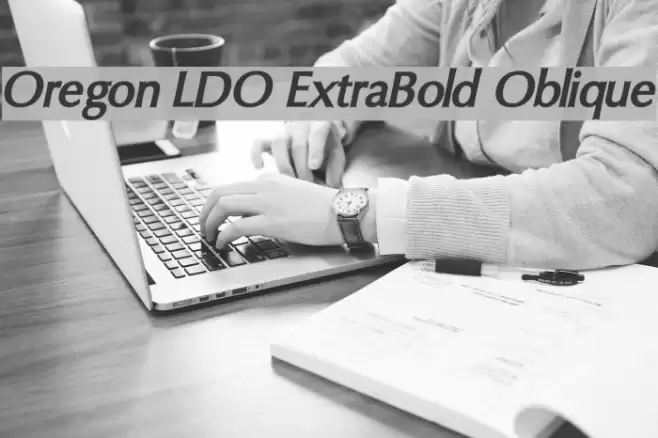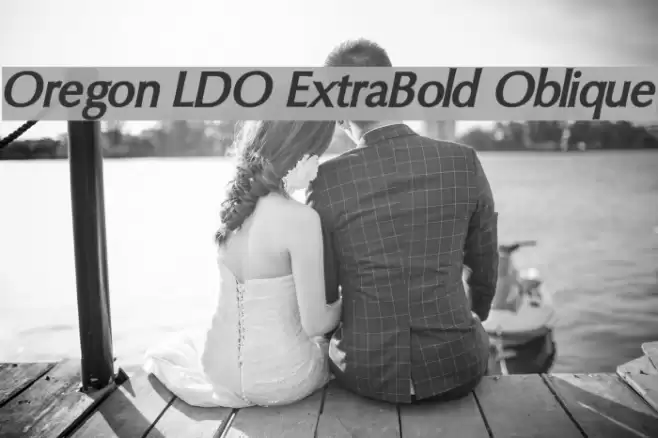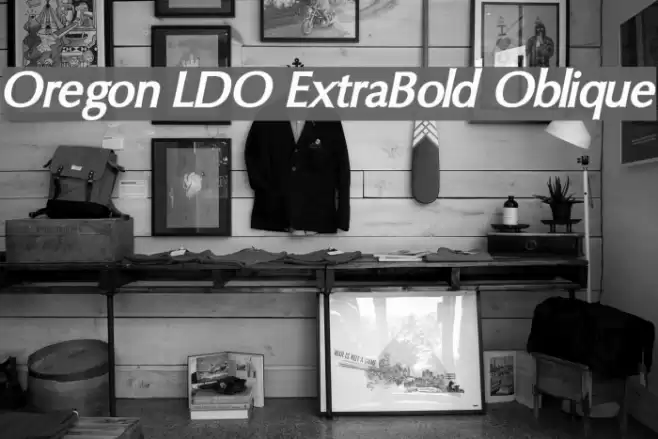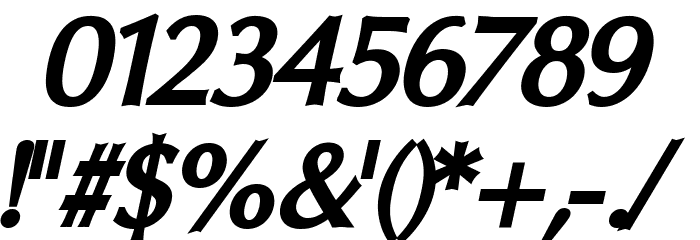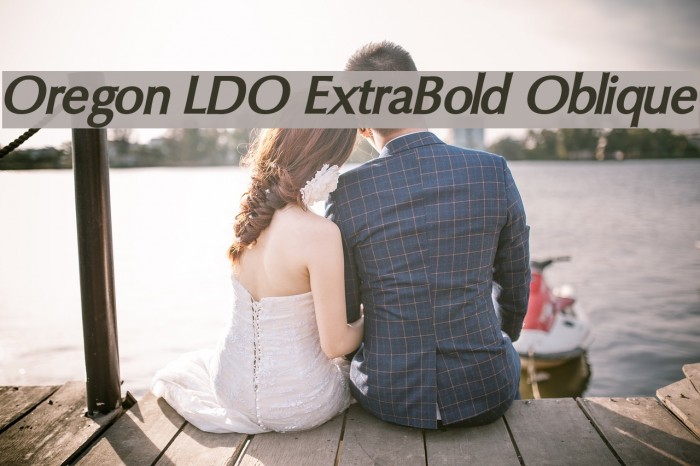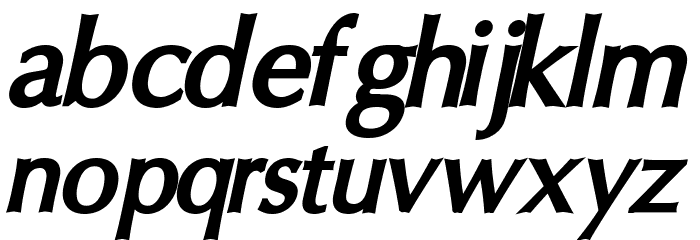
Oregon LDO ExtraBold Oblique Font
Oregon LDO ExtraBold Oblique Description
This font features a bold and oblique style, characterized by its strong, slanted letterforms that convey a sense of dynamism and movement. The uppercase and lowercase letters maintain a consistent weight, providing a uniform appearance across the text. The numerals are clear and legible, matching the boldness of the alphabet characters. Special characters are included, offering versatility for various design needs. The overall aesthetic is modern and assertive, making it suitable for impactful headlines and attention-grabbing designs.
A bold, oblique font with a modern and dynamic style from Uncategorized fonts.
- Proposed Projects: Ideal for branding, advertising, and editorial design where a strong, modern presence is required.